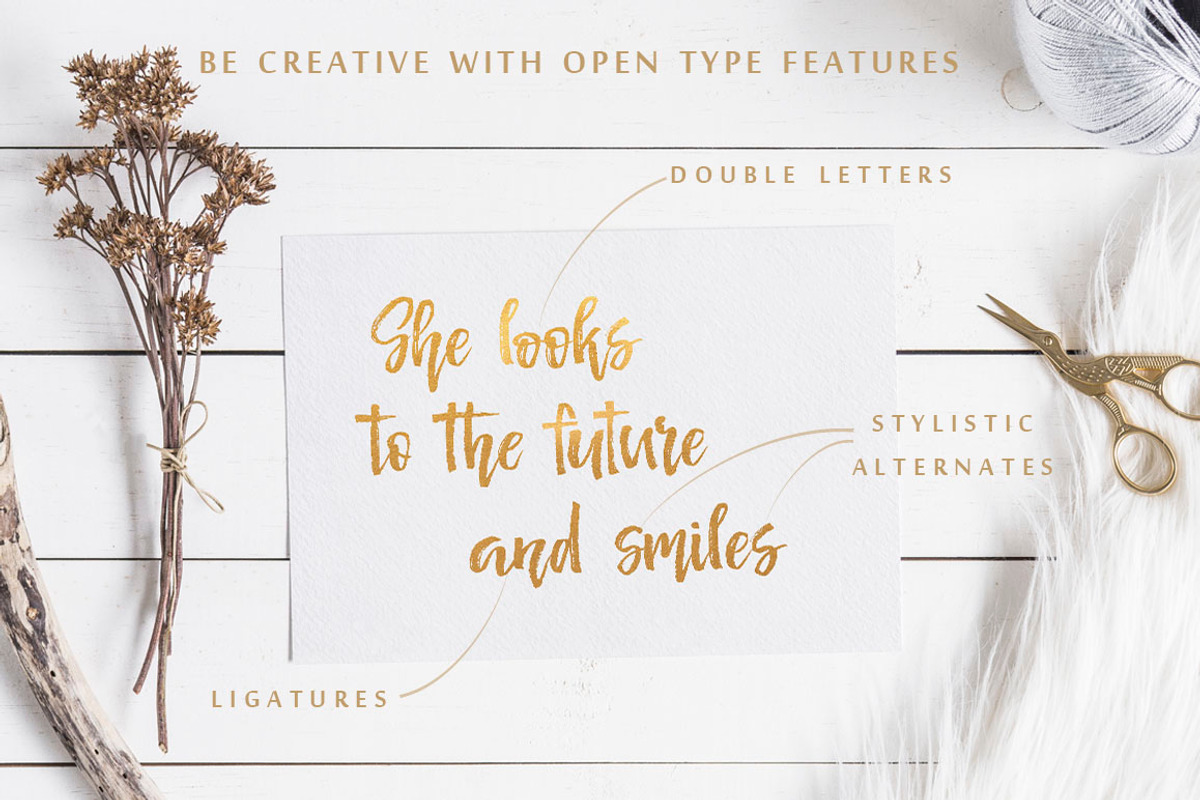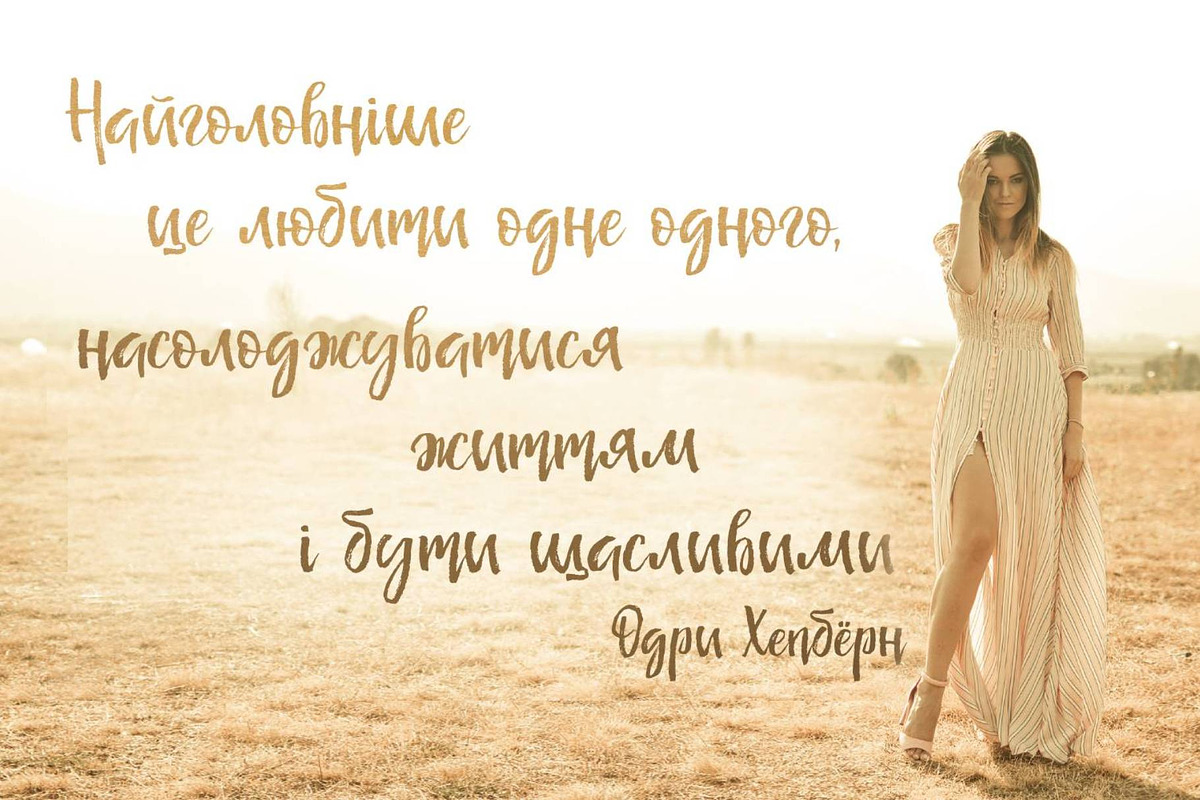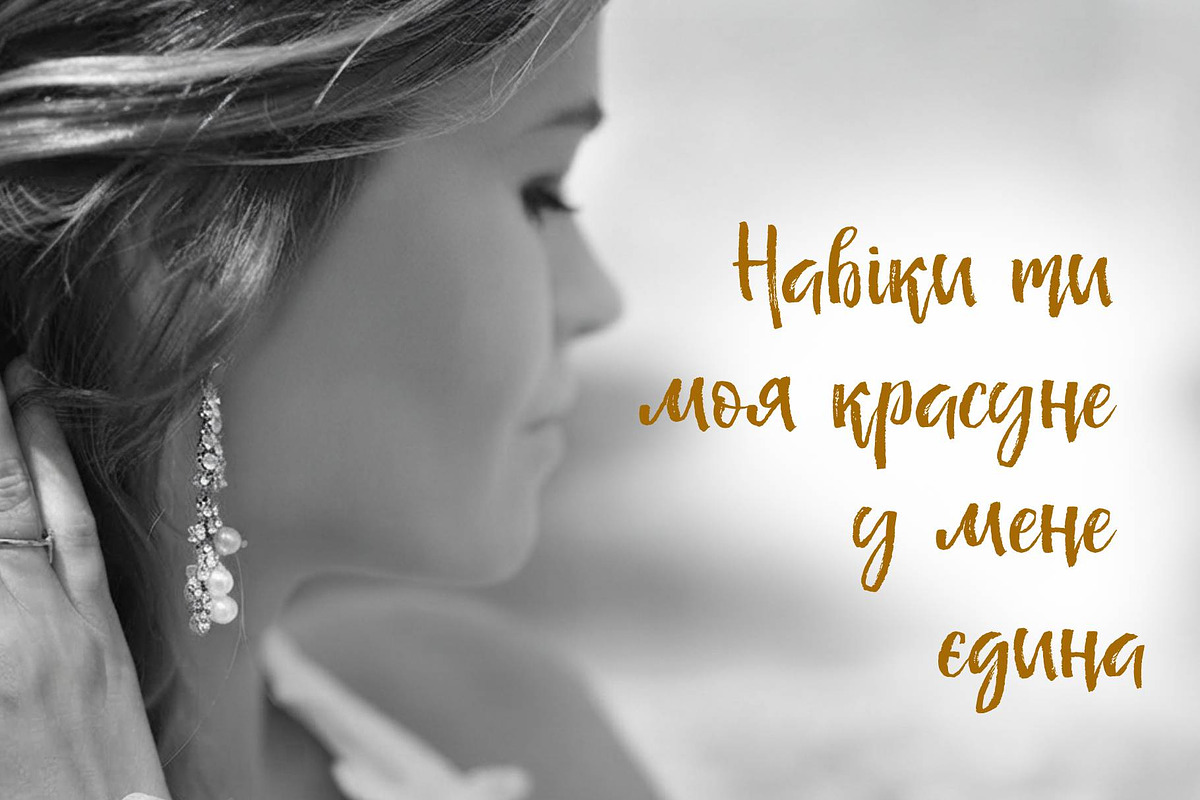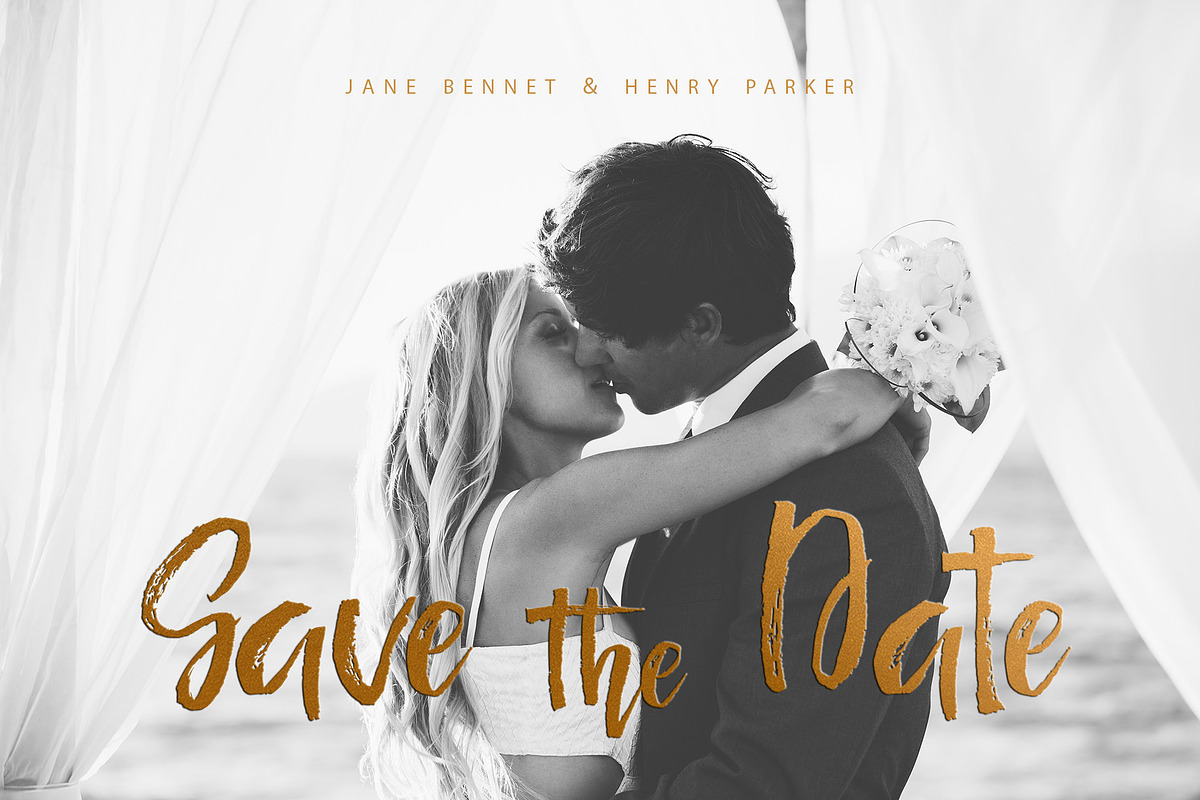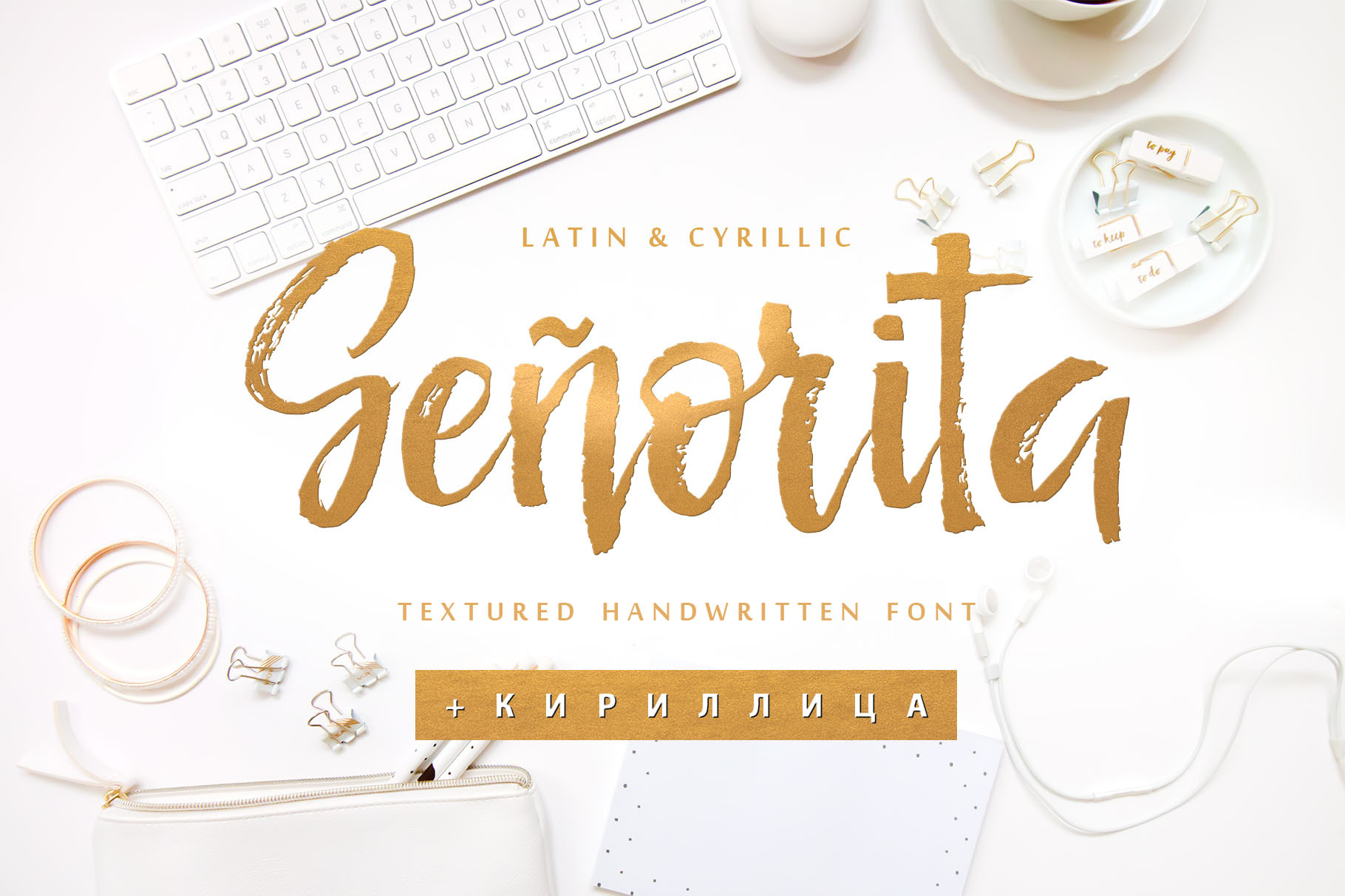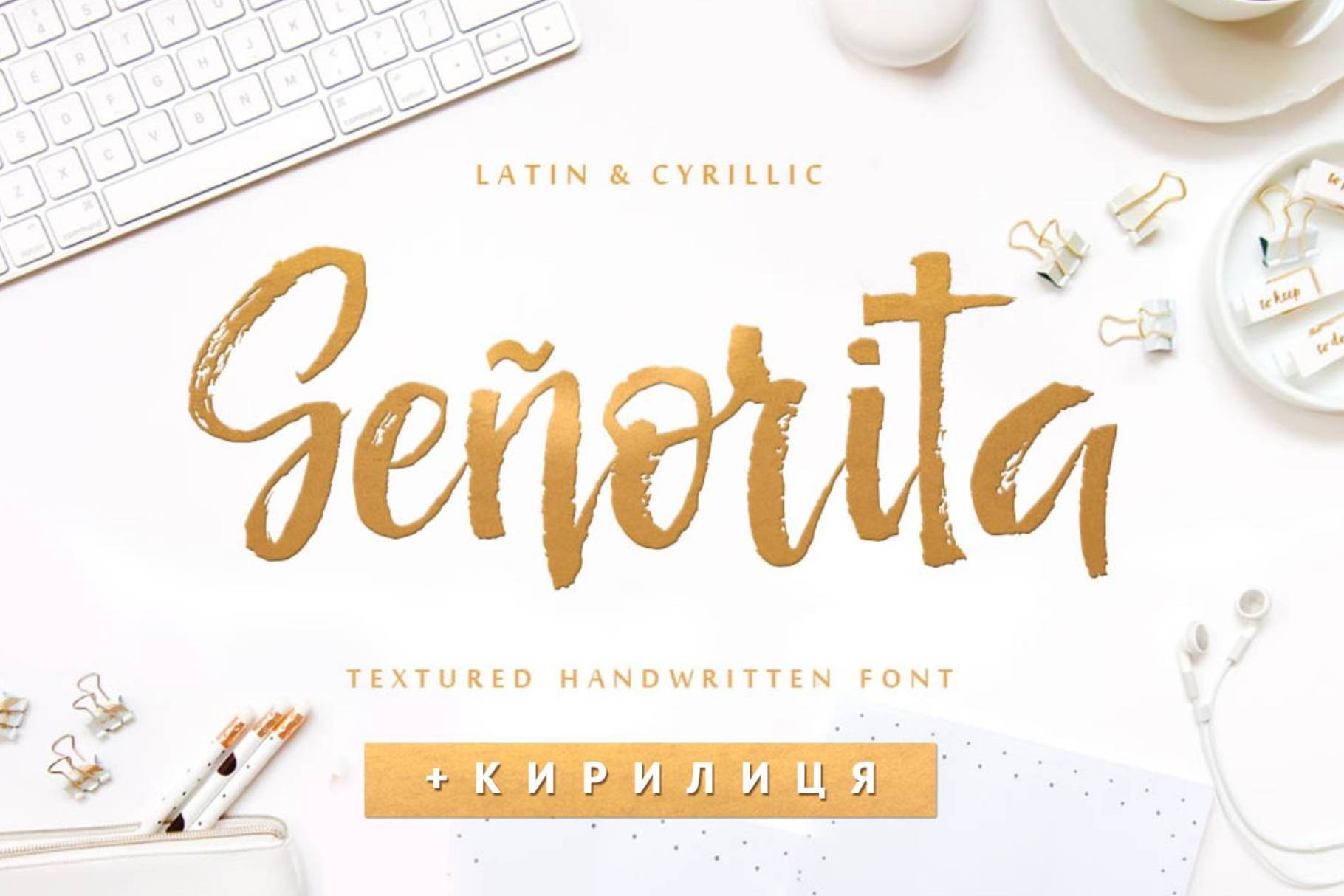
Senorita Cyrillic Textured Font
The hand-drawn script Senorita Cyrillic font was handwritten with a dry brush and will look great on branding design, posters, apparel, logotype, website header, fashion design, wedding card design, and more. Senorita Cyrillic is a luxurious and elegant handwritten script font designed to add a sophisticated, artistic touch to your creative projects. Created with careful attention to detail, this font is the ultimate choice for branding, upscale logos, wedding invitations, romantic stationery, social media posts, elegant packaging, fashion designs, and luxury product styling.
Hand-drawn script font Señorita contains a full set of uppercase letters, 2 full sets of lowercase letters, and 43 ligatures, which can be used to create a handwritten calligraphy look. Use alternate lowercase and double-letter ligatures to create a perfect hand-painted look in your creations.
The Cyrillic part of the font contains uppercase letters, lowercase letters, and 17 ligatures, giving a realistic hand-lettered style.
Multilingual Support for 33 languages: Latin glyphs for Afrikaans, Albanian, Basque, Bosnian, Catalan, Danish, Dutch, English, Estonian, Faroese, Filipino, Finnish, French, Galician, Indonesian, Irish, Italian, Malay, Norwegian Bokmål, Portuguese, Slovenian, Spanish, Swahili, Swedish, Turkish, Welsh, Zulu.
And Cyrillic Glyphs: Bulgarian, Ukrainian, Mongolian, Kazakh, Russian, and Belarusian languages. (Does the font support more Cyrillic languages just type a message in the text box below and see if all the characters you’ll need are there.)